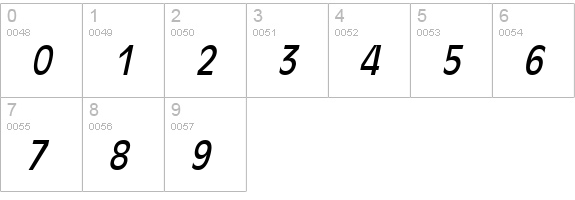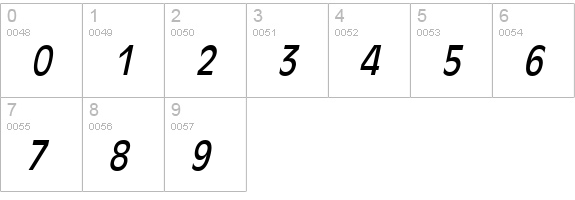
Antiqua 101 Condensed Italic Font Details
Antiqua 101 Condensed Italic is a distinctive, condensed-width, italic variant in the Antiqua typeface family \xE2\x80\x94 well suited to design and typography projects.
Antiqua 101 Condensed Italic font exudes elegance and sophistication with its slender and graceful letterforms. This condensed italic typeface strikes the perfect balance between classic design and modern appeal, making it ideal for adding a touch of style to any project. The slanted angles of the italic characters create a sense of movement and fluidity, adding a dynamic flair to your typography. Best of all, Antiqua 101 Condensed Italic font is available for free download at FontsMarket.com. Whether you're working on a branding project, editorial design, or website layout, this font is sure to elevate your designs with its timeless charm and versatility. Embrace the beauty of Antiqua 101 Condensed Italic font and bring a touch of sophistication to your creative endeavors today.